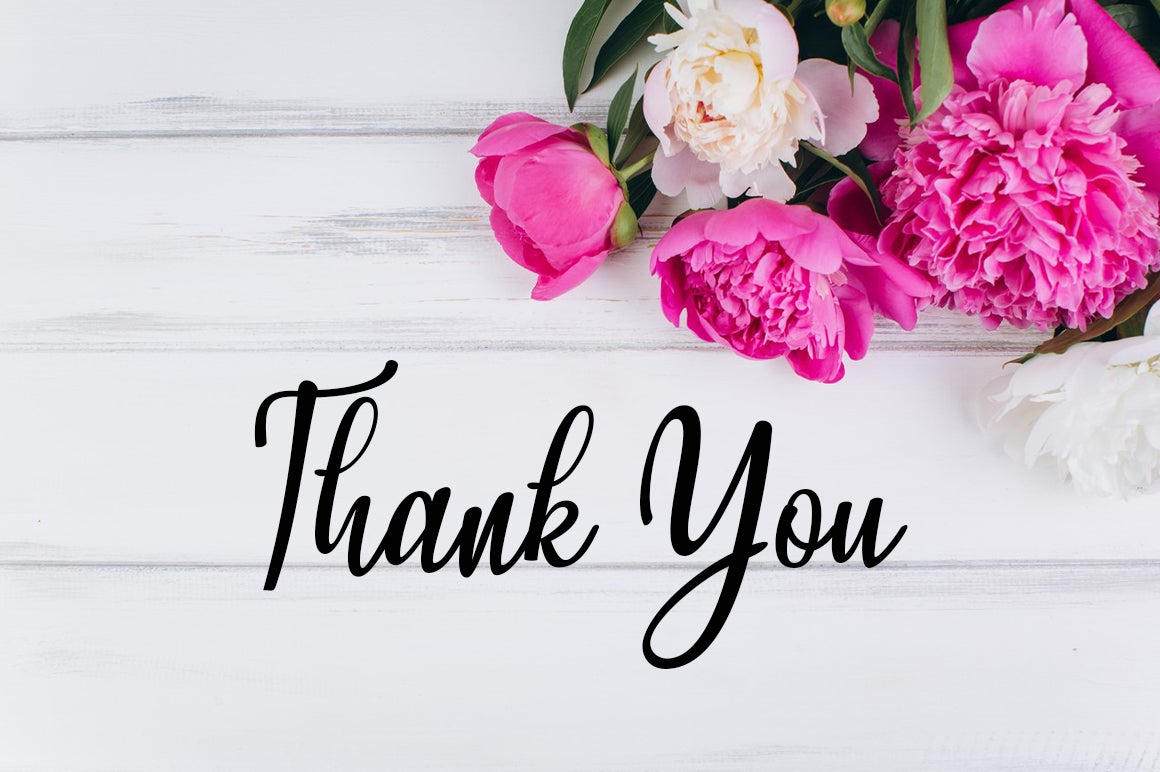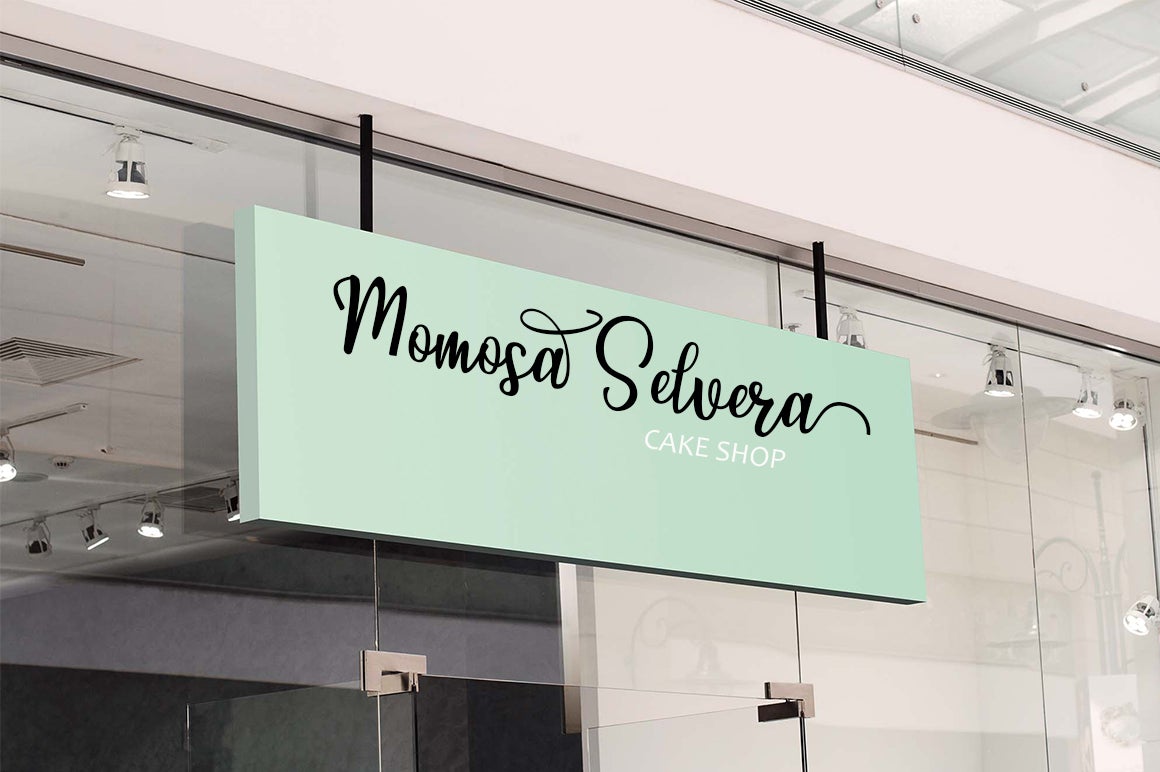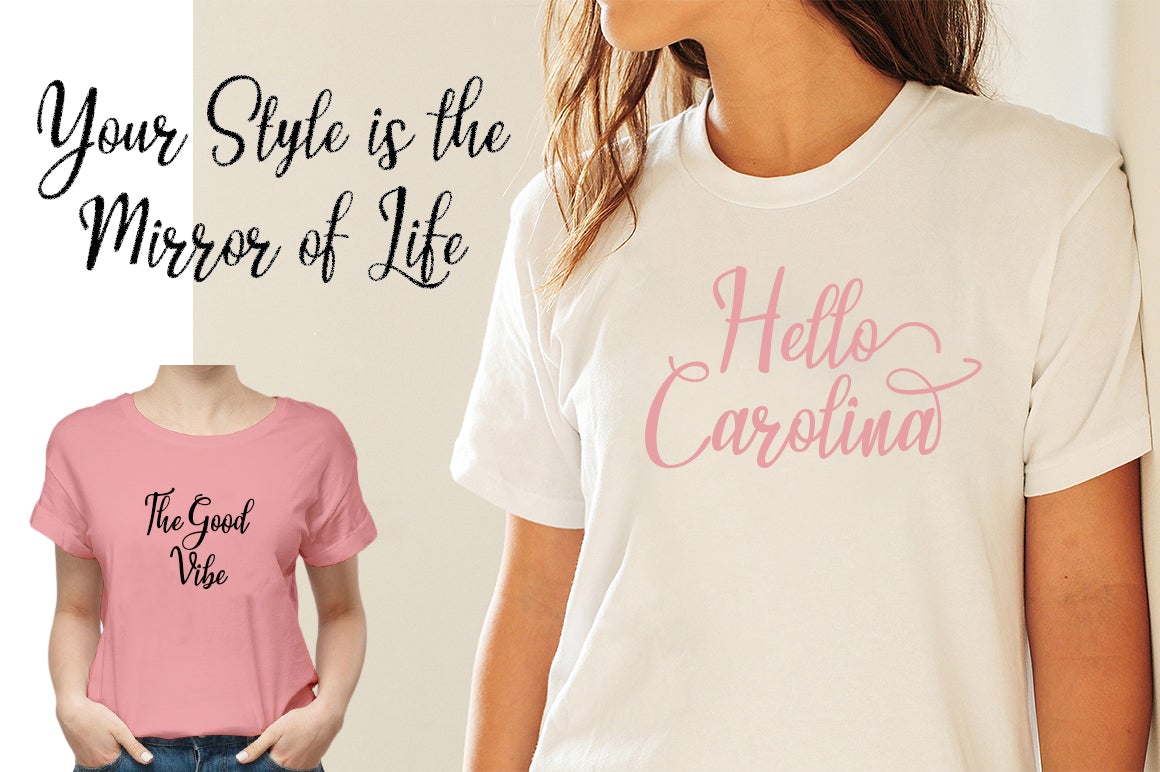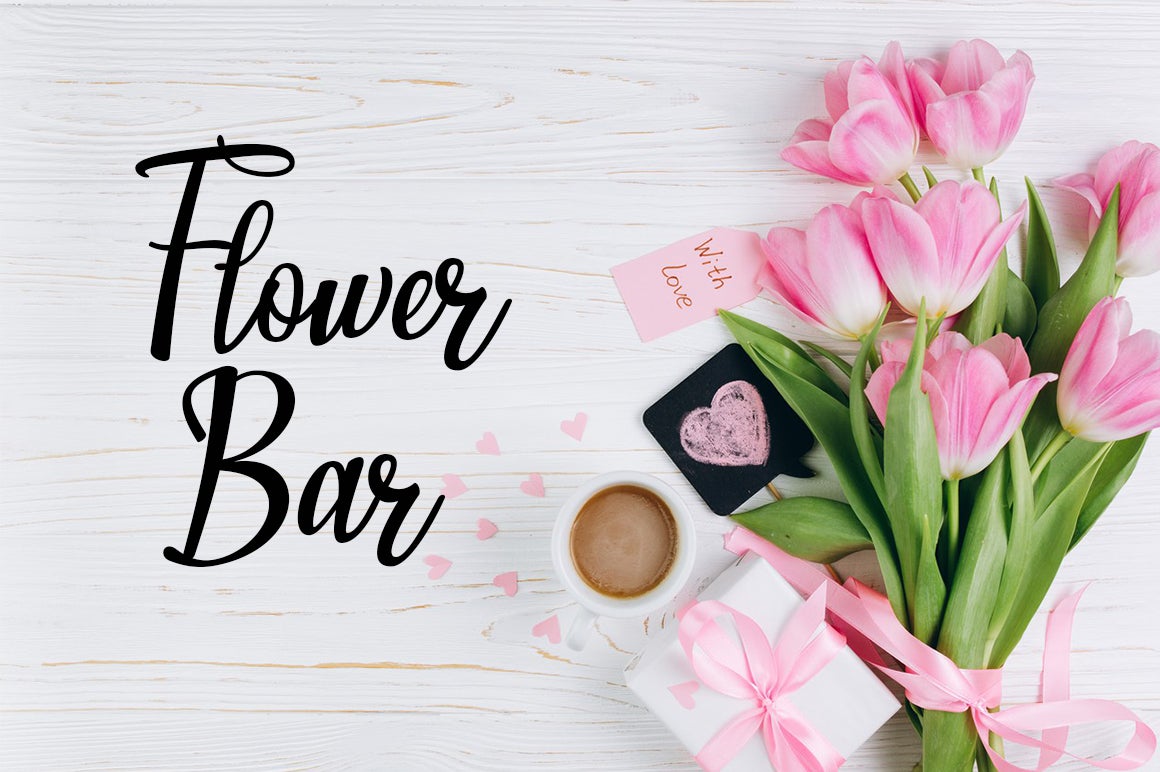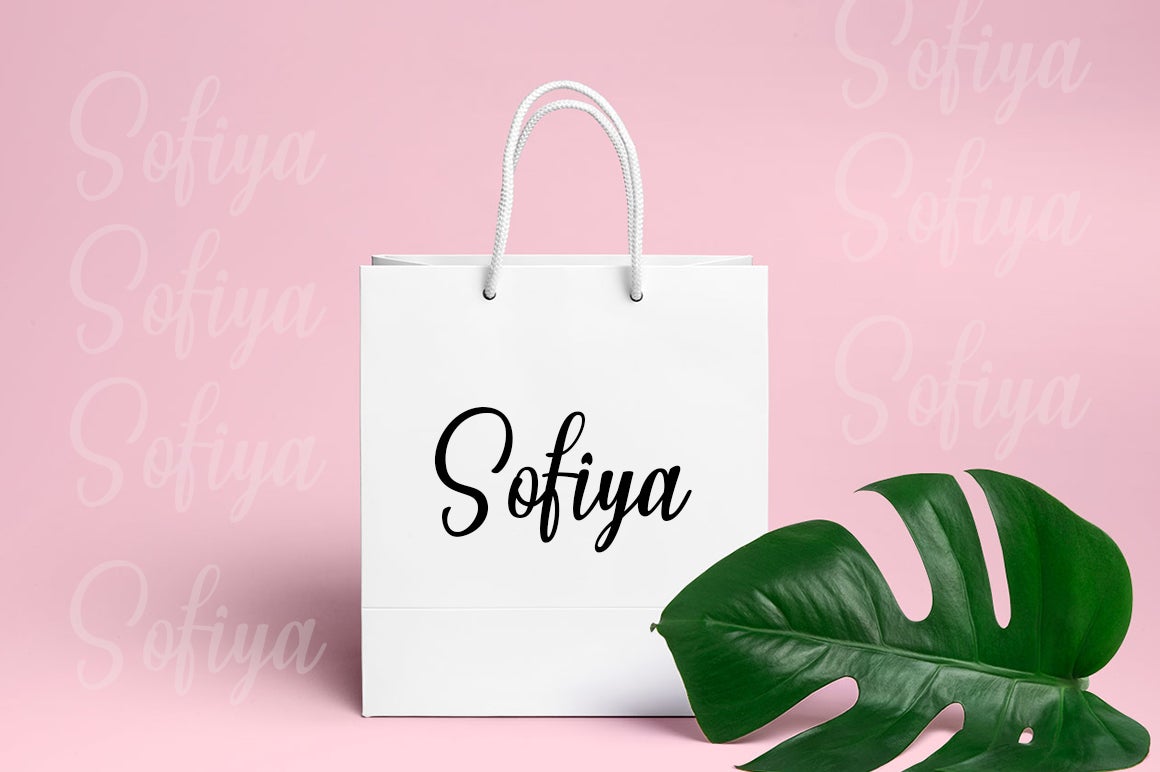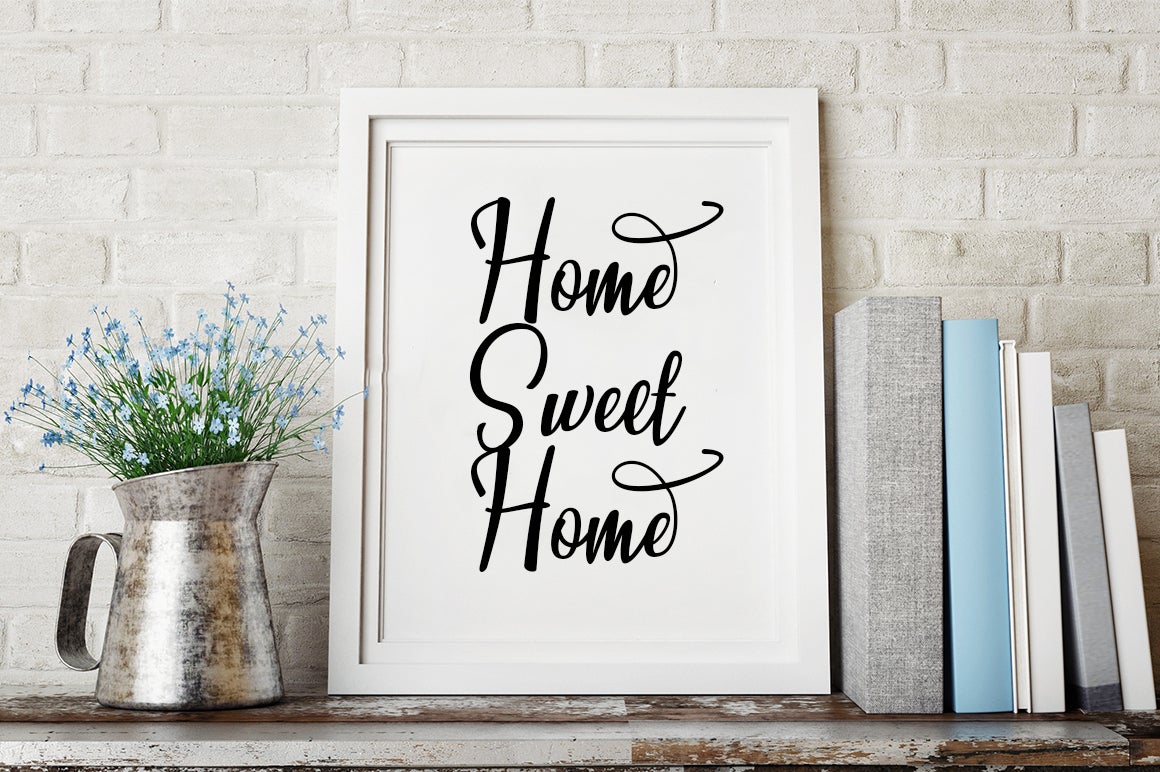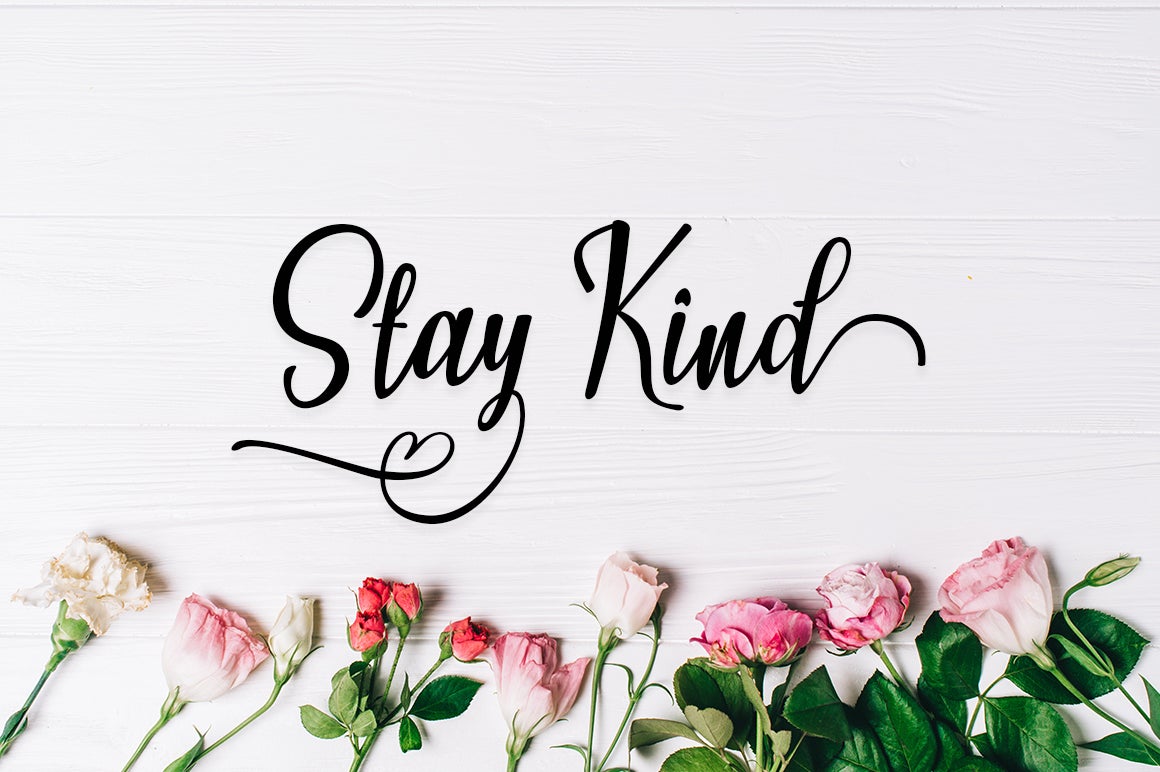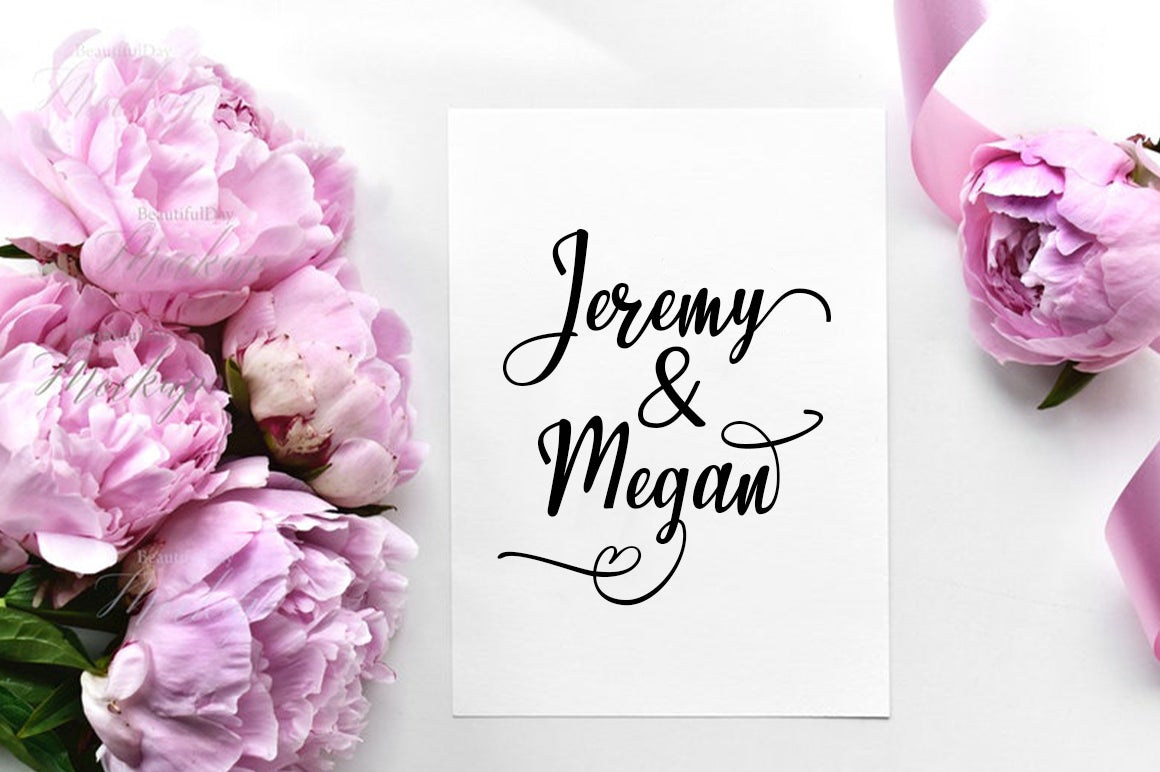
Michelle Stine
About Michelle Stine
Michelle Stine is a modern calligraphy font. It’s letters dance along the baseline which gives it a elegant touch. Michelle Stine can be used for various purposes such as logos, wedding invitations, heading, t-shirts, letterheads and much more!